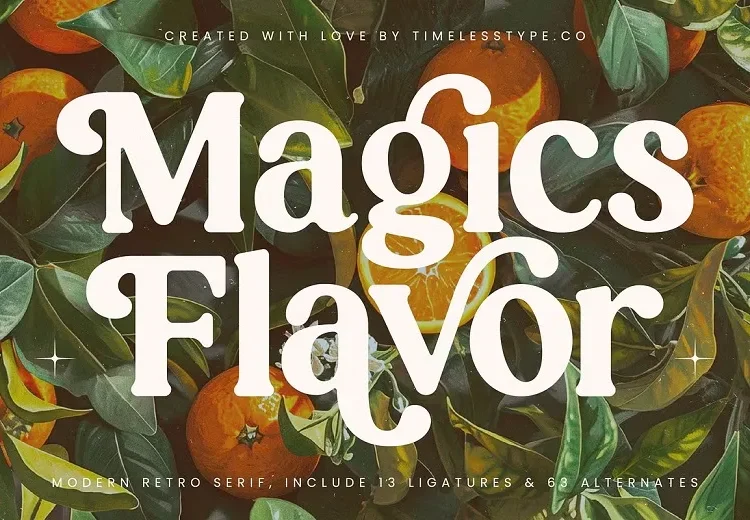
Magics Flavor Font
Magics Flavor is a modern retro serif font from Timelesstype Co. that perfectly captures the essence of vintage elegance with a contemporary twist. Its versatile design makes it ideal for a wide range of projects, from logos and branding to homeware and luxury product packaging, adding a touch of sophistication to everything it graces.
Key Features of Magics Flavor:
Vintage Meets Modern: Magics Flavor seamlessly blends retro charm with modern design elements, making it perfect for projects that require a unique and stylish serif font.
Versatile Application: From logos and branding to book covers and greeting cards, Magics Flavor adapts beautifully to various design needs, enhancing the luxury and appeal of your creations.
Elegant and Stylish: The clean lines and retro-inspired serifs of Magics Flavor bring an elegant and stylish look to all your luxury and beautiful projects, ensuring they stand out with timeless grace.
Ideal Uses for Magics Flavor:
Logos and Branding: Use Magics Flavor to create distinctive and memorable logos and branding materials that convey both vintage charm and modern sophistication.
Product Packaging and Homeware: Add a touch of elegance to product packaging, mugs, and homeware designs with the stylish retro feel of Magics Flavor.
Special Events and Invitations: Perfect for special events, invitation cards, and greeting cards, Magics Flavor brings a refined and luxurious touch to all your designs.